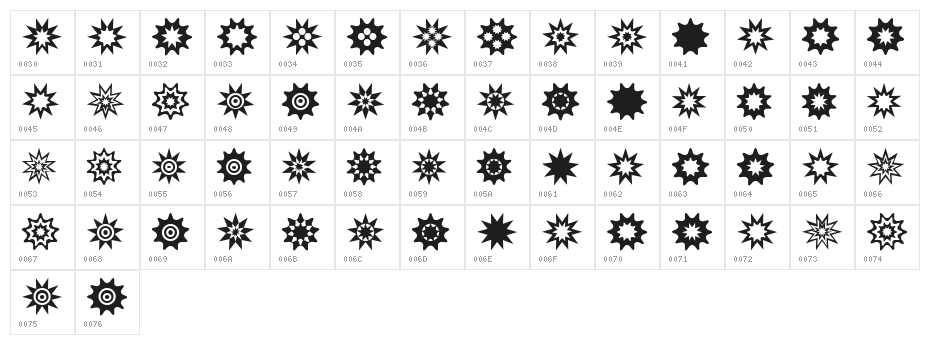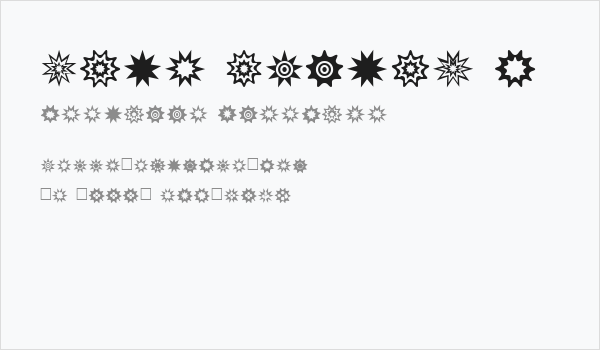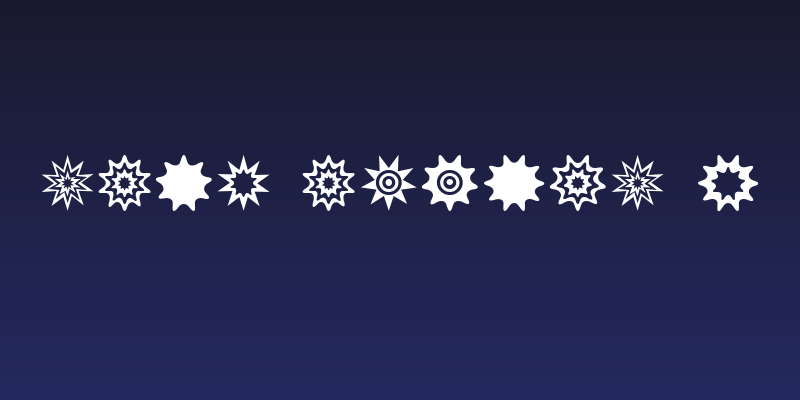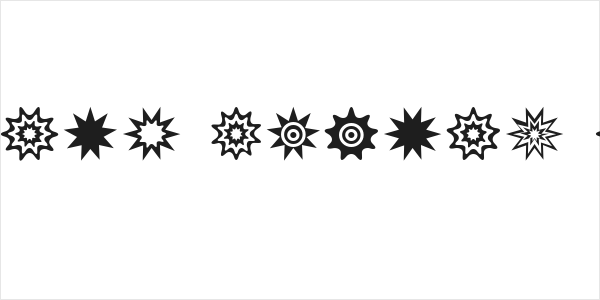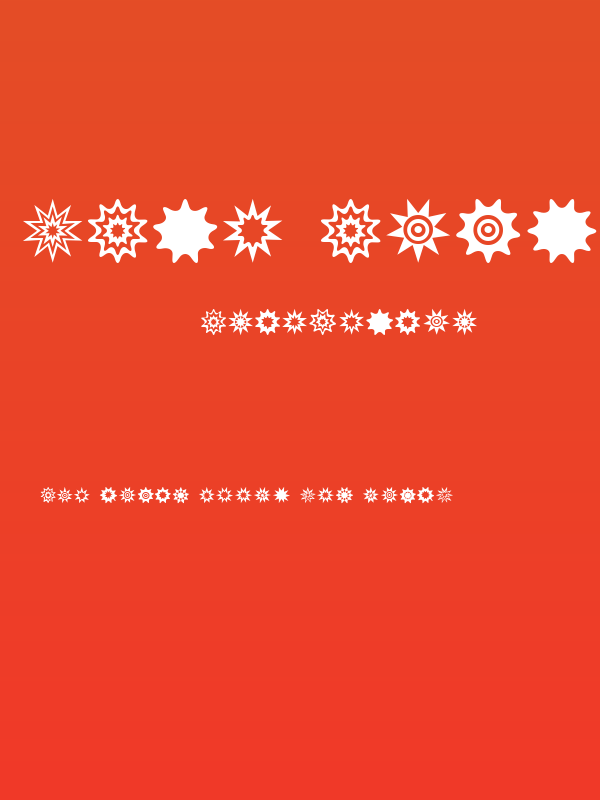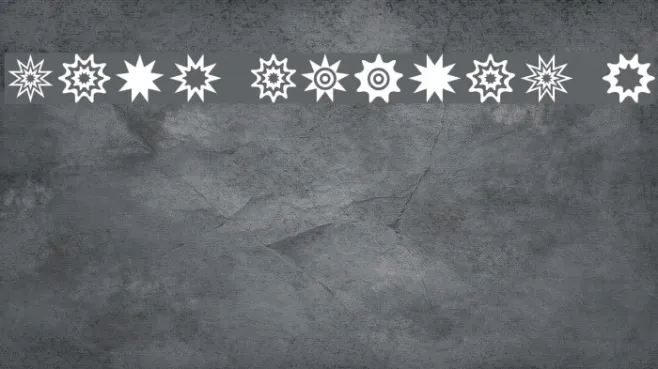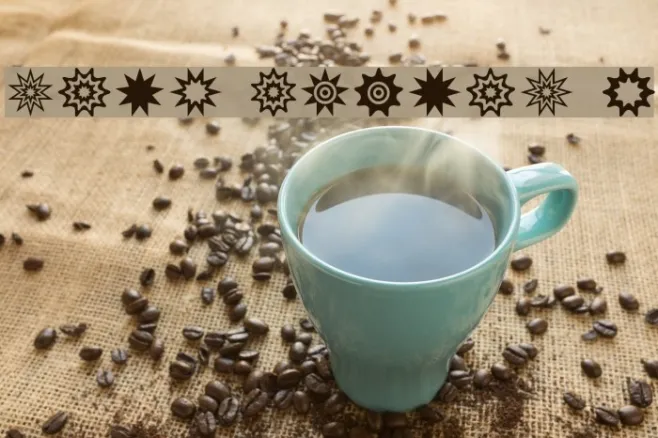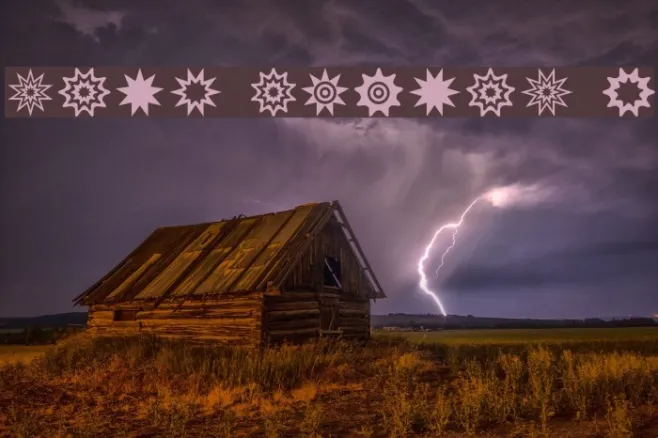
Star Things 3 Font
Star Things 3 Description
A decorative dingbat font featuring a variety of starburst and gear-like shapes, each glyph presenting a unique star or spiked motif with different levels of detail, fill, and complexity.
| Use Case | Icons, Borders, Decorative elements |
| Proposed Projects | Posters, invitations, scrapbooking, digital stickers, icons, dividers, and decorative borders. |